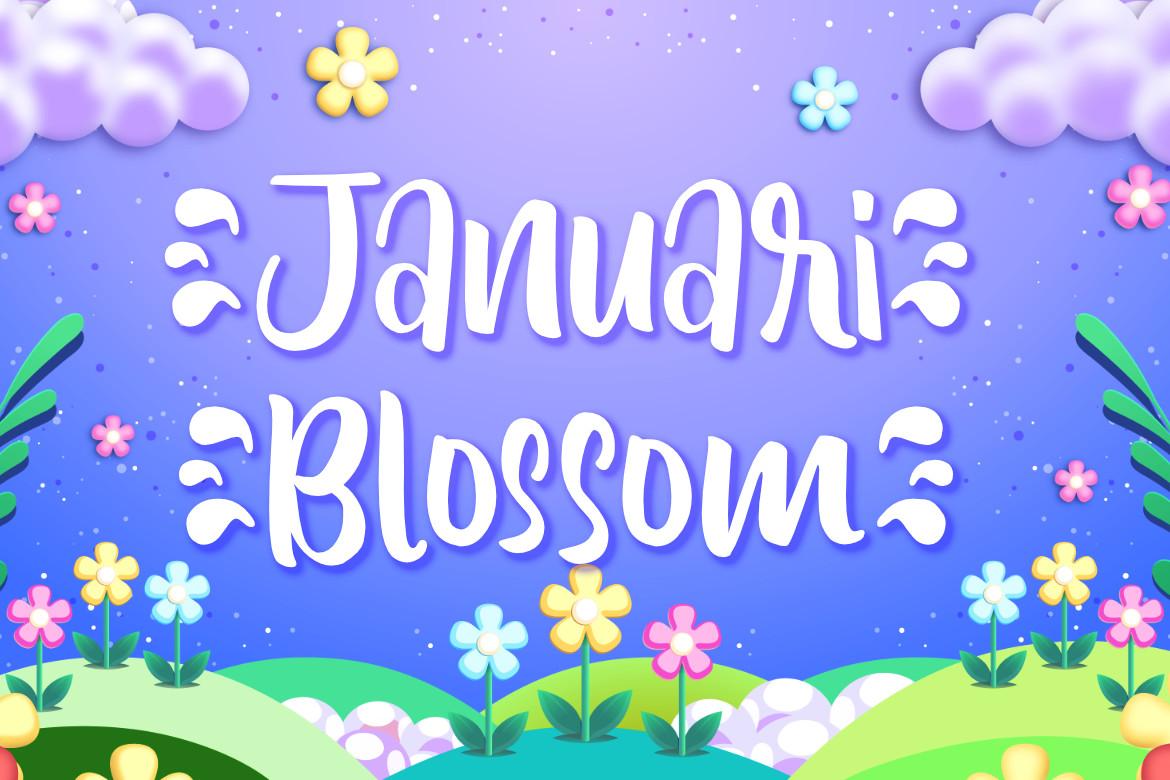
Januari Blossom Font Description
Januari Blossom is a sweet and cute display font. This font has a strong yet friendly shape, and as a result, it will match a wide range of informal designs. Create any cute, funny and stunning designs using Januari Blossom.